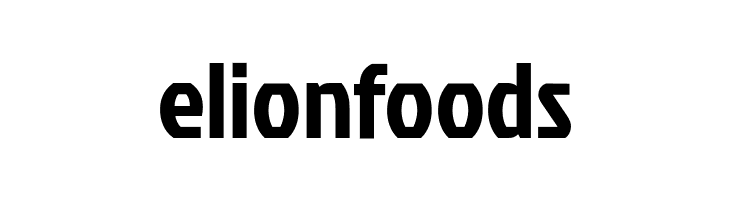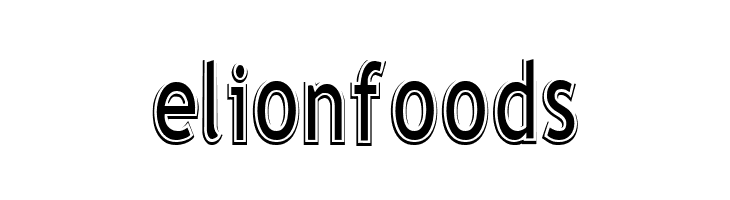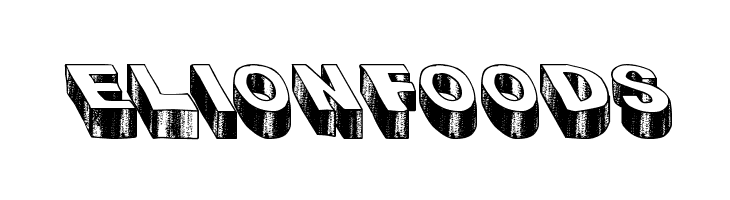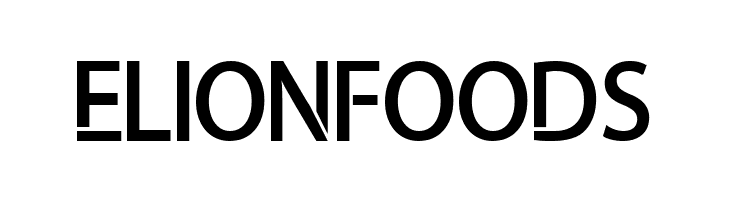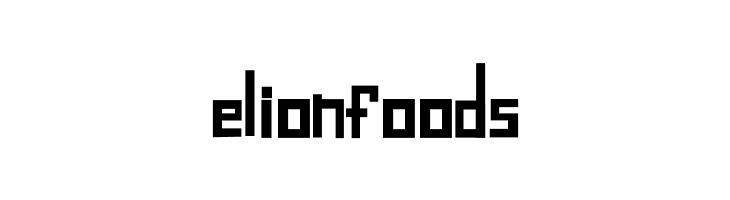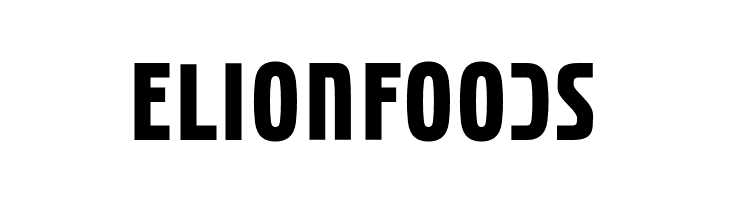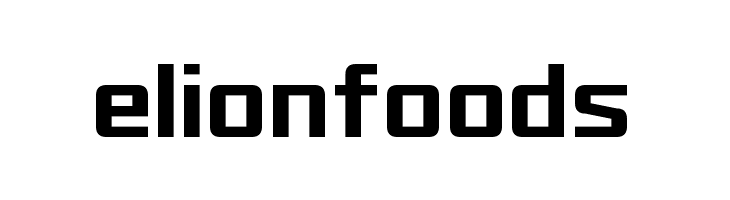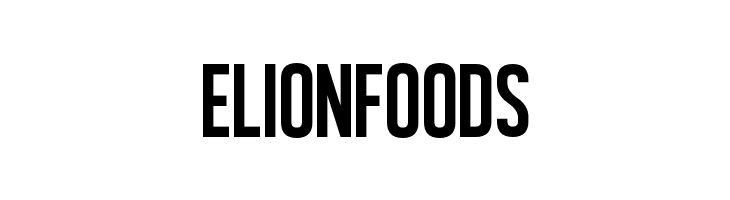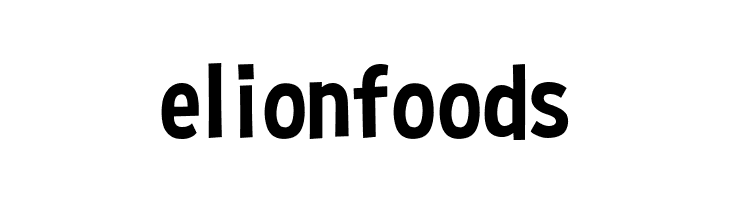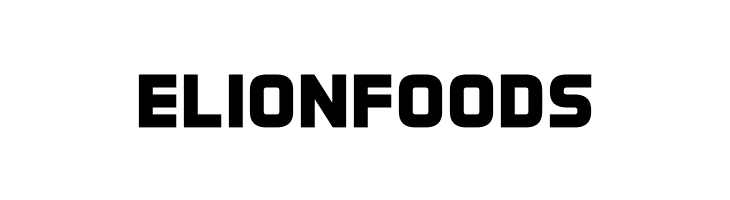
( Fonts by www.type-together.com )
A bold, modern sans-serif font with clean, geometric lines.
( Fonts by Steve Cloutier - www.cloutierfontes.ca )
A modern, outlined font with elegant, bold lines and a sophisticated style.
( Fonts by Kirk Shelton - www.kirkshelton.com )
A bold, 3D vintage-style font with heavy outlines and shadowing.
( Fonts by Sora Sagano - www.dotcolon.net )
A bold, geometric font with strong, angular lines and a modern aesthetic.
( Font by Jayvee D. Enaguas - grandchaos9000.deviantart.com )
A bold, modern font with geometric lines and consistent stroke width.
( Font by Jayvee D. Enaguas - grandchaos9000.deviantart.com )
A bold, modern sans-serif font with strong vertical lines and uniform strokes.
( Font by Jayvee D. Enaguas - grandchaos9000.deviantart.com )
A bold, modern font with clean lines and a slightly condensed style.
( Font by Jayvee D. Enaguas - grandchaos9000.deviantart.com )
A bold, geometric font with strong, clean lines and a modern aesthetic.